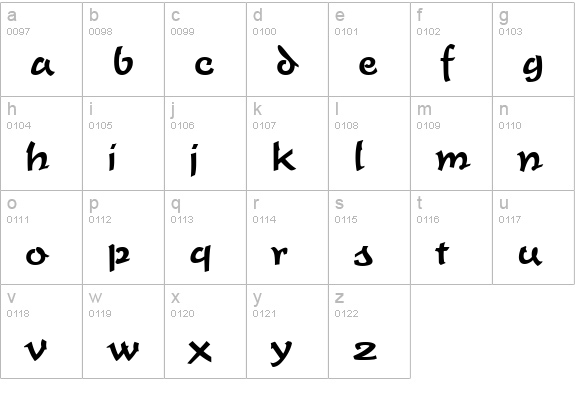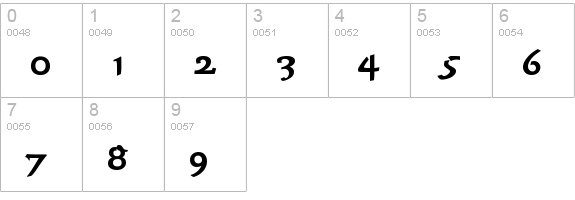
TiogaScript-Medium-Regular is a balanced, medium-weight variant in the TiogaScript typeface family \xE2\x80\x94 well suited to sub-headlines, navigation, and balanced editorial work.
TiogaScript-Medium-Regular font is a versatile and modern typeface that exudes elegance and sophistication. Its clean lines and balanced proportions make it perfect for a wide range of design projects, from branding to editorial layouts. The font features a medium weight that strikes a harmonious balance between readability and style. What sets TiogaScript-Medium-Regular font apart is that it is available for free download at FontsMarket.com. This means that you can easily access this high-quality font for your personal and commercial projects without any cost. Whether you are working on a website, poster, or branding materials, TiogaScript-Medium-Regular font is a reliable choice that will elevate your design to the next level.